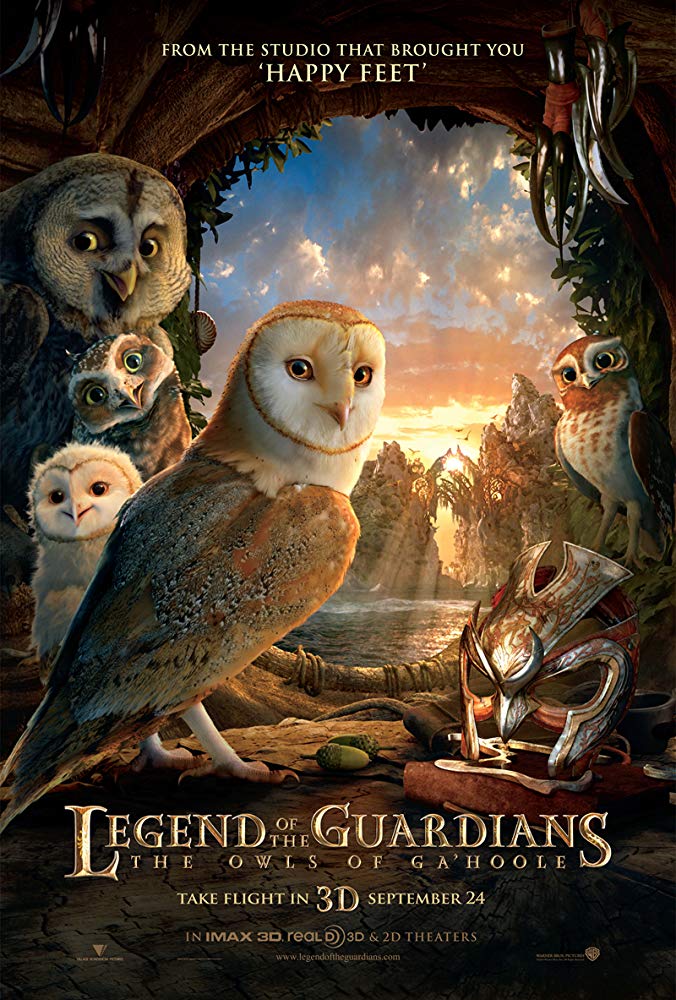
Legend of the Guardians Font
AdventureLegend of the Guardians: The Owls of Ga’Hoole is a fantasy family adventure film about a group of young owls as they fight against an evil owl army to defend their home. The film is based on the series Guardians of Ga’Hoole by Kathryn Lasky.
The Legend of the Guardians: The Owls of Ga’Hoole title on the poster uses a decorative typeface called ITC Golden Cockerel created by Eric Gill in 1929. ITC Golden Cockerel font family has a comprehensive set of Roman, Italic, Titling, Initials, and Ornaments.